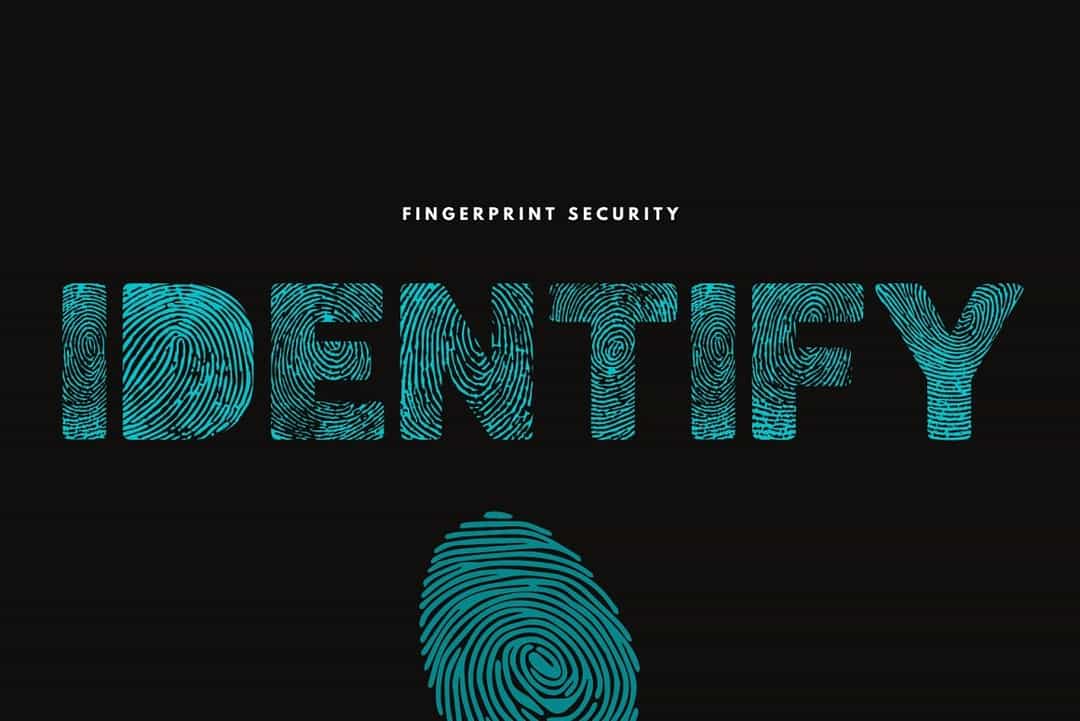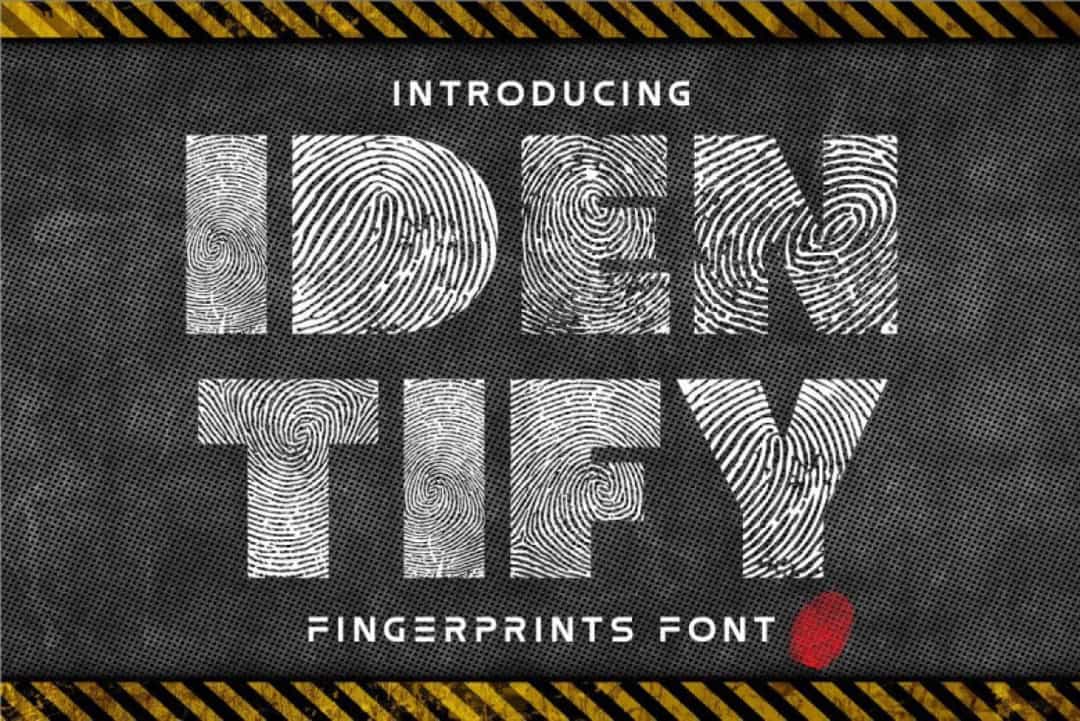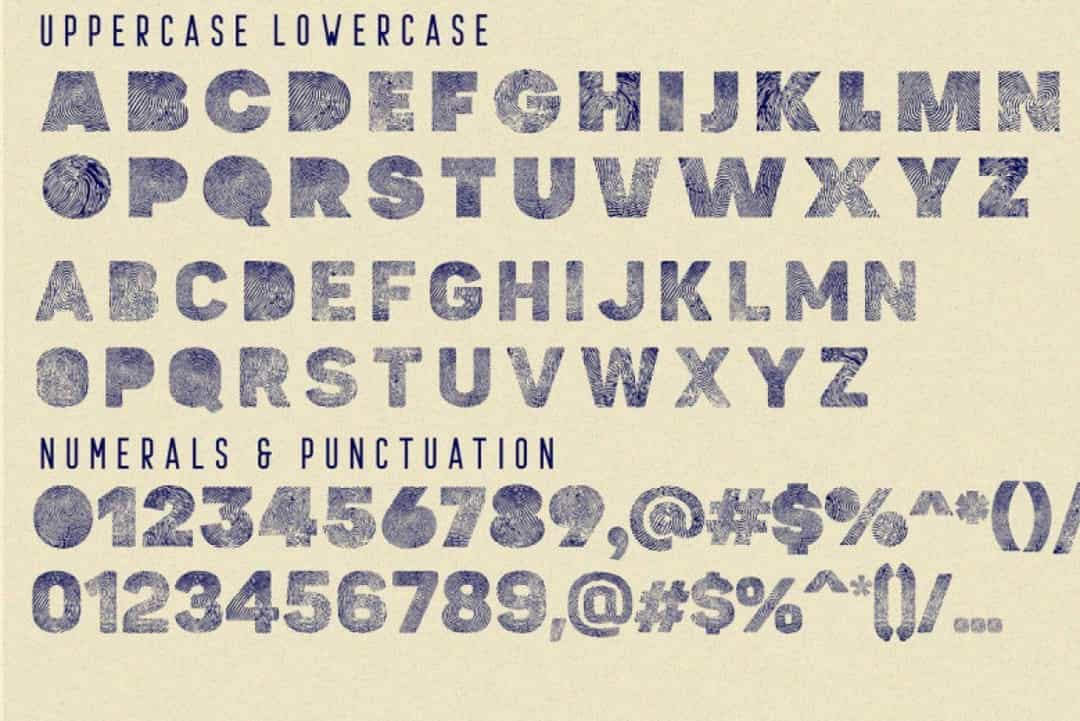
Identify Font is a fantastic and creative font designed to meet any purpose imaginable, be it cartoon related or children-related games – this font will certainly bring its own elegant appearance! Identify Font will become one of your go-to fonts when looking for an elegant solution!